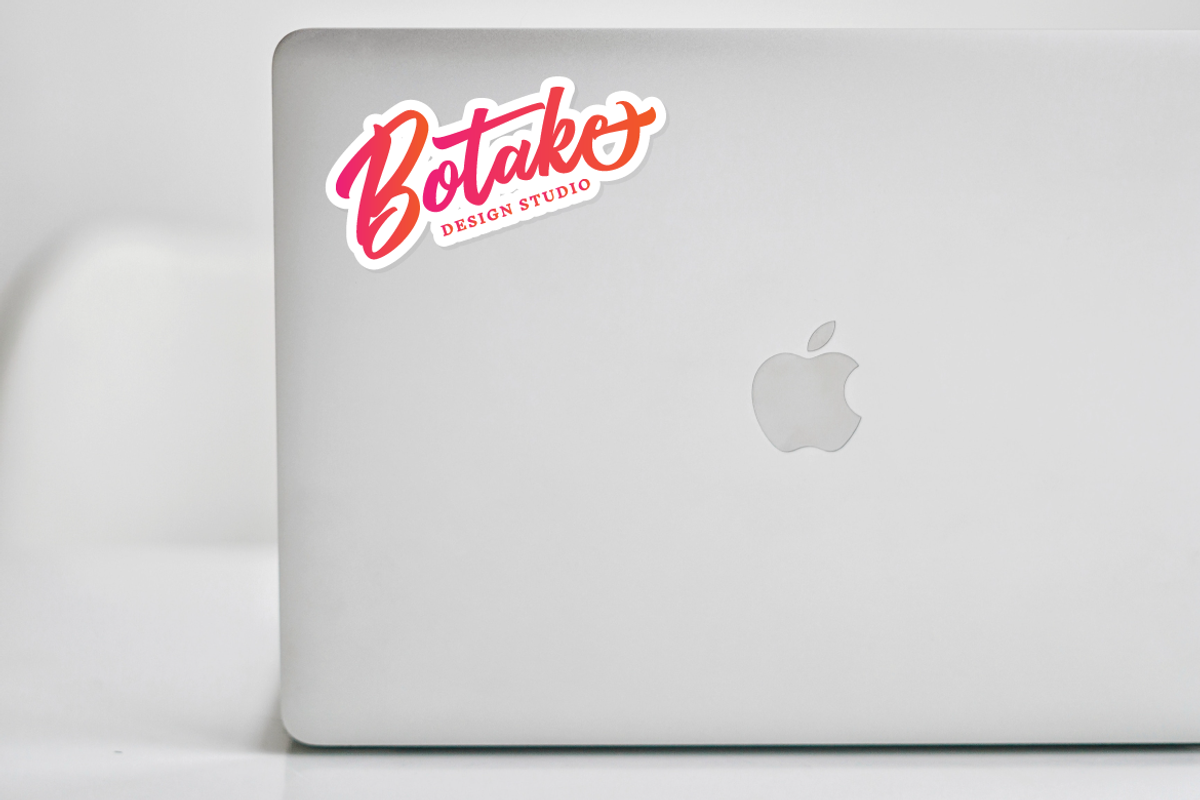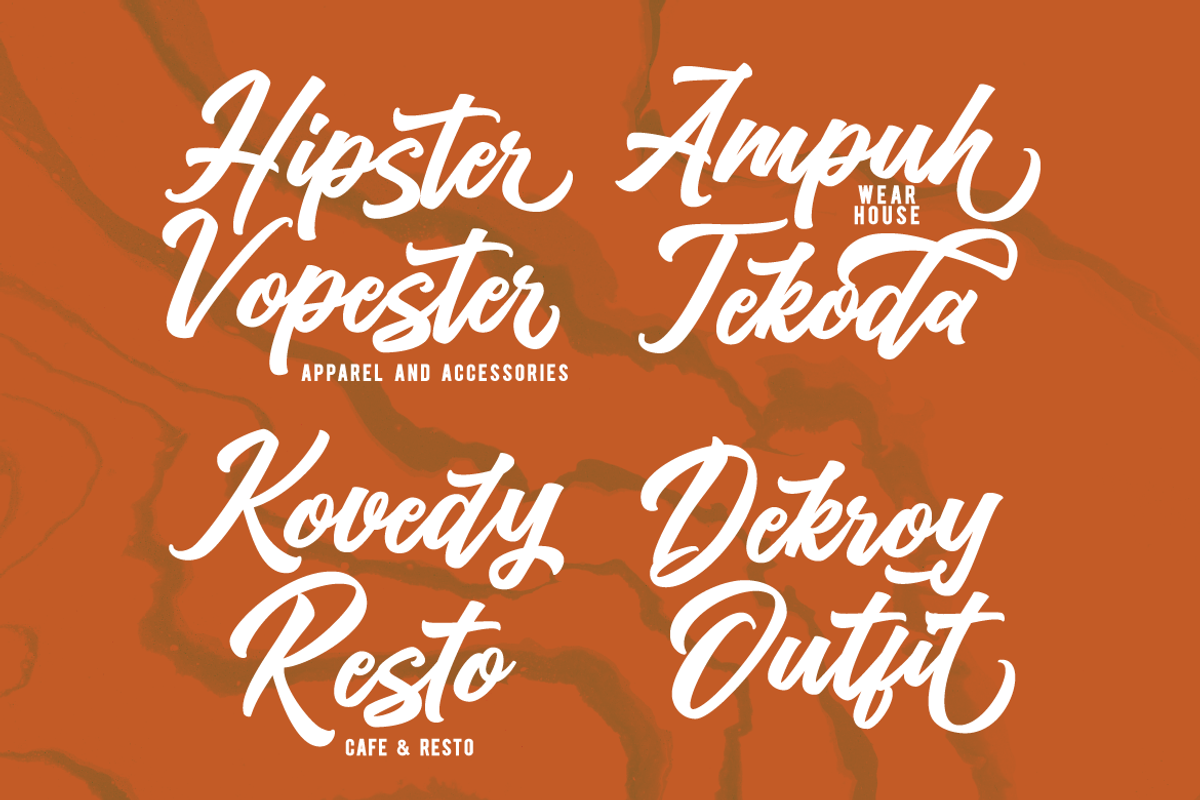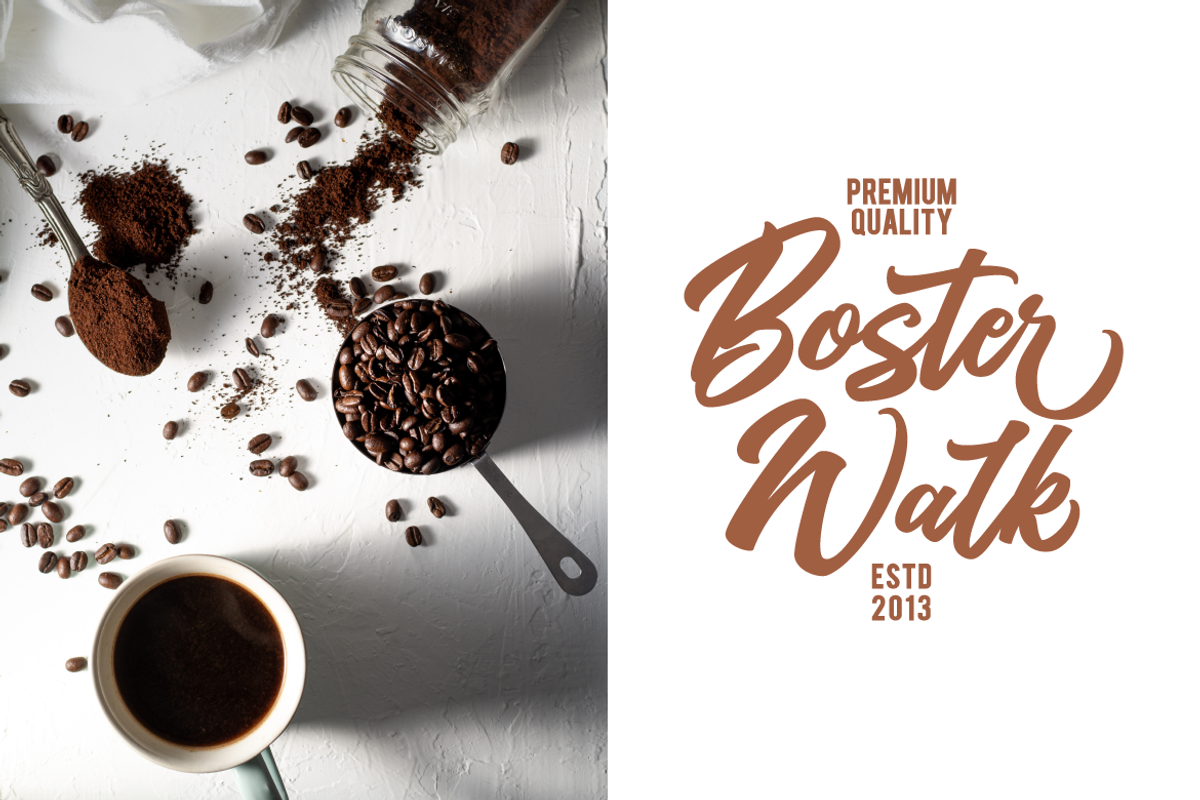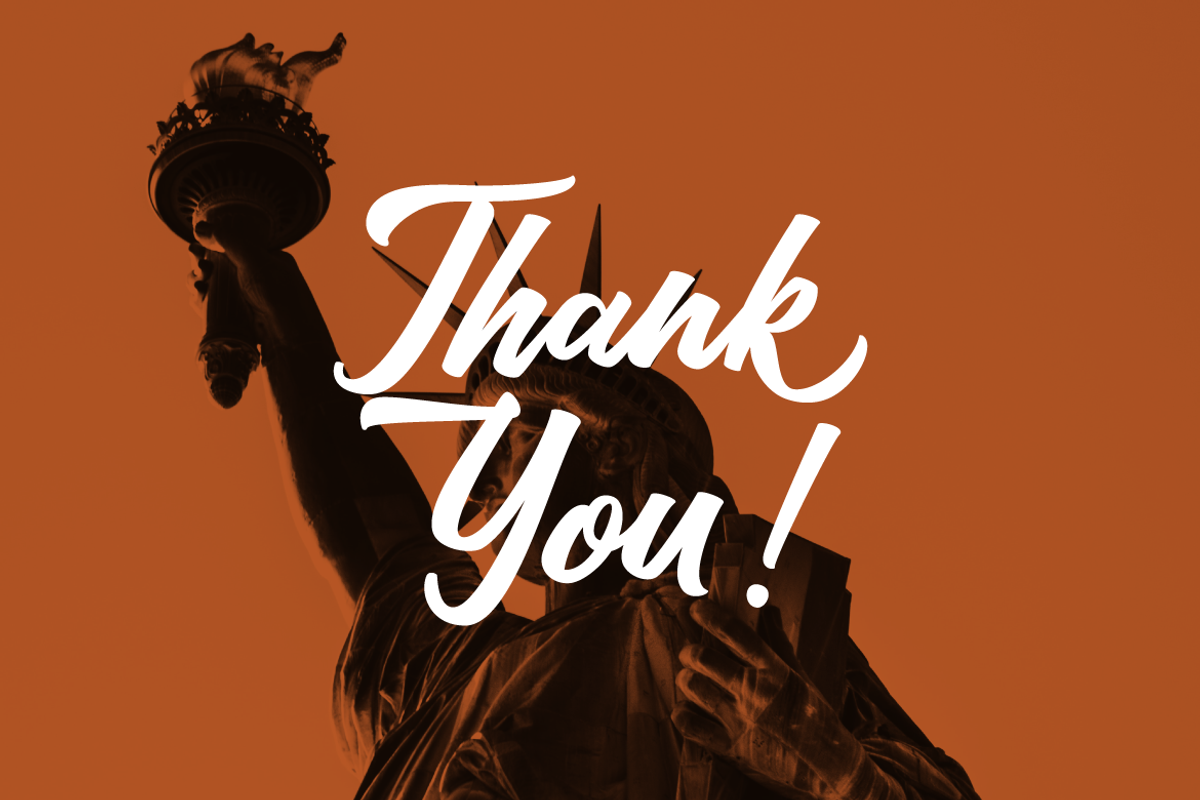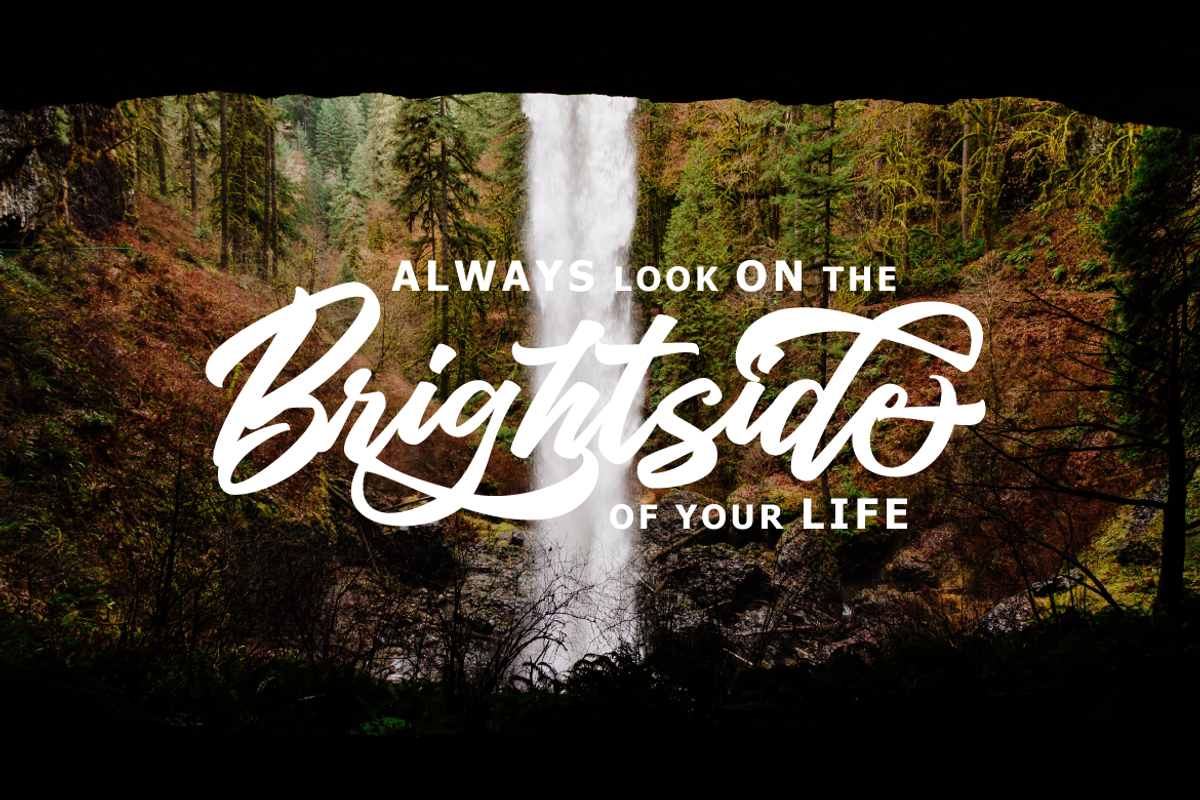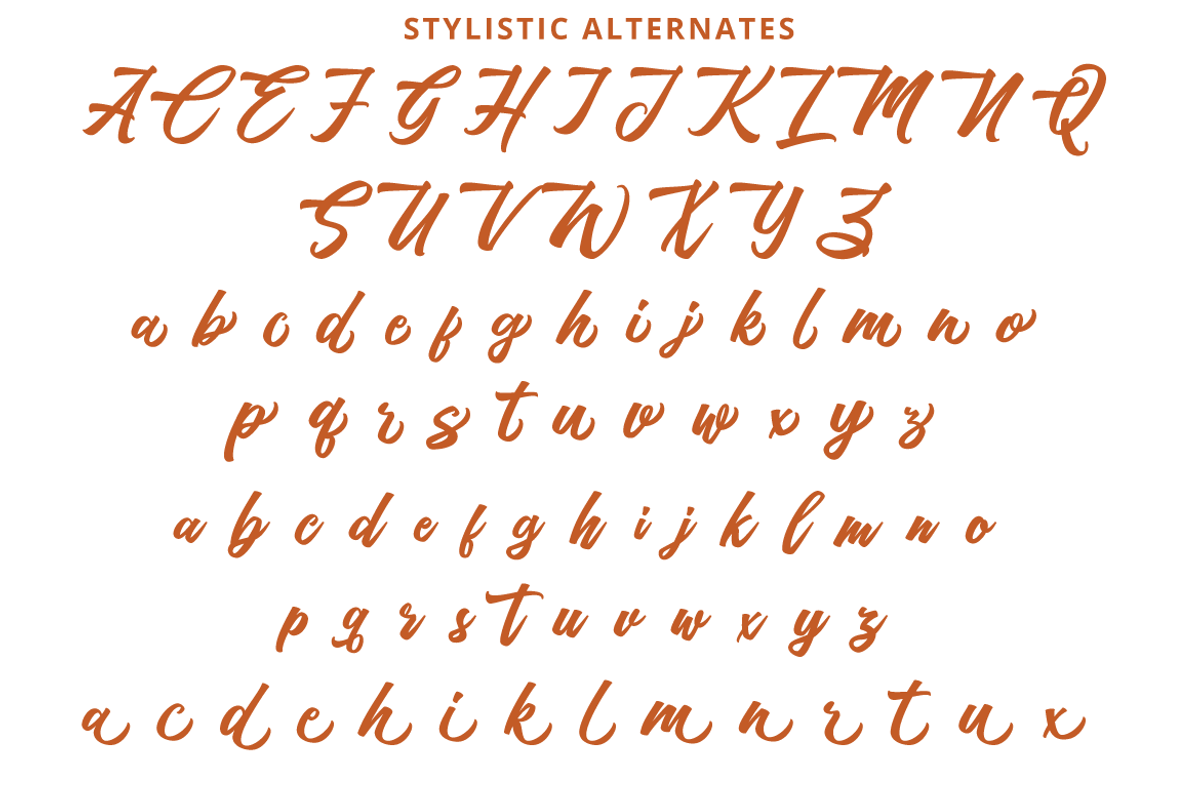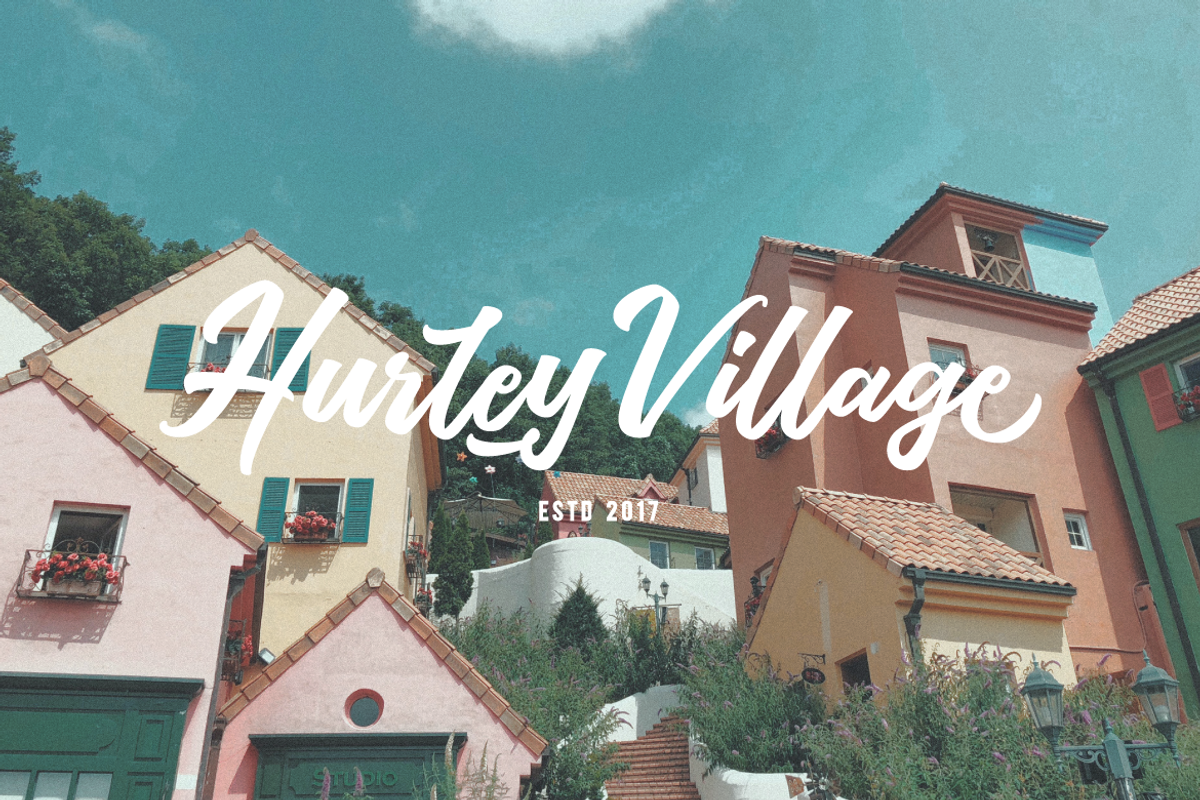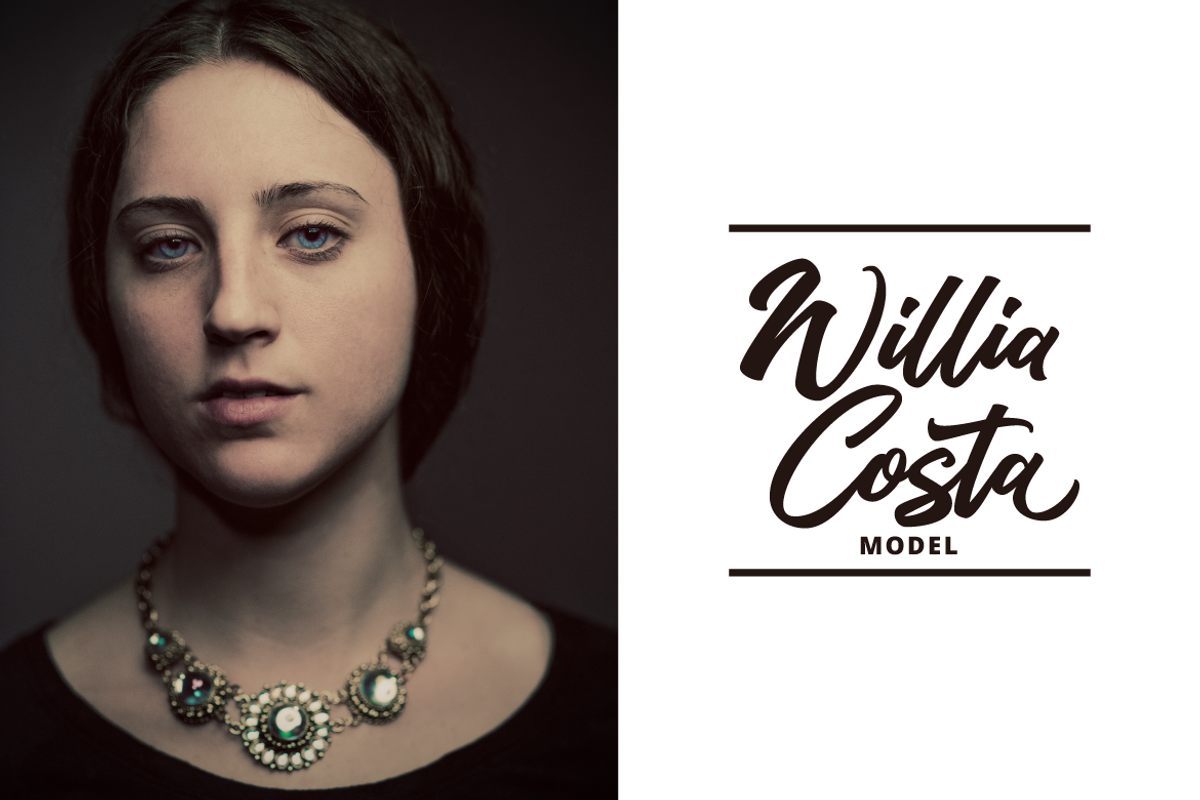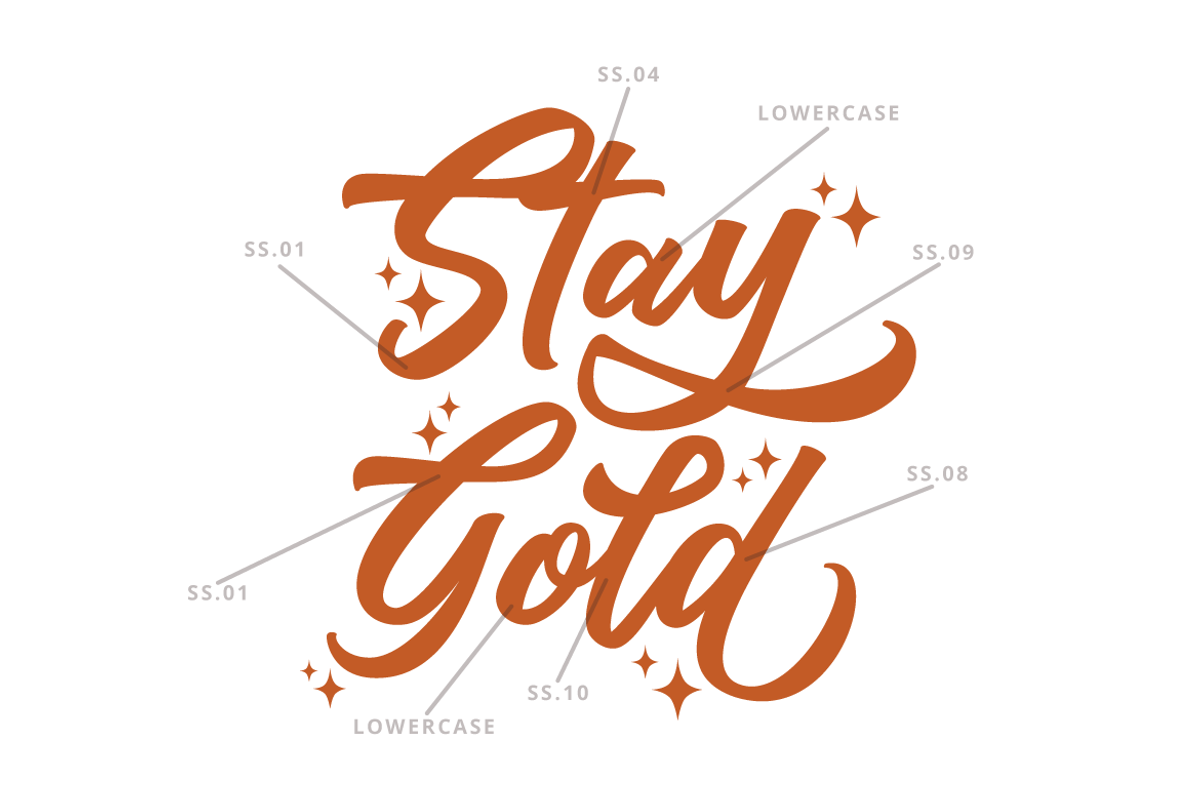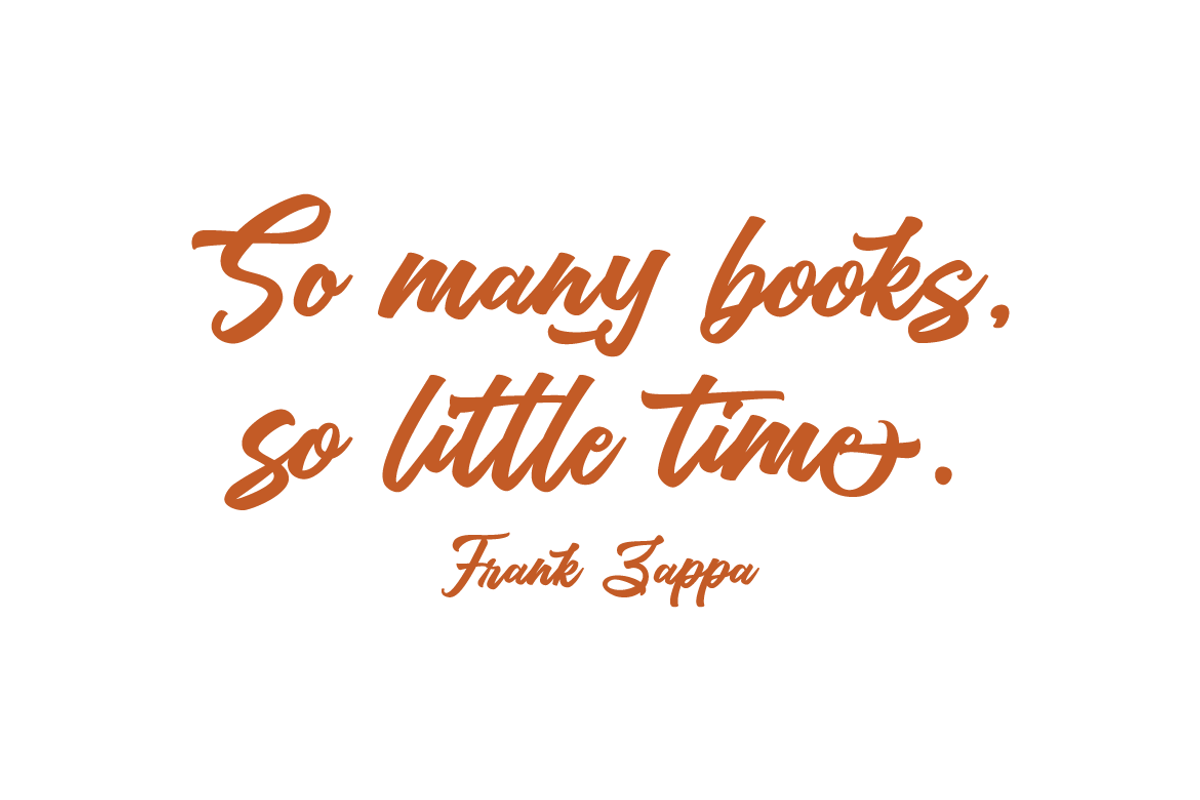
Artukge - Bold Script Logotype
Introducing new latest from TebTipsudio, Artukge Script is a typeface with personality. You can use it as a logo, badge, insignia, packaging, headline, poster, etc The alternative characters in this font were divided into several OpenType features such as Stylistic Alternates, Stylistic Sets, and Ligature. The OpenType features can be accessed by using OpenType program such as Adobe Illustrator, Adobe Photoshop, and Adobe InDesign.